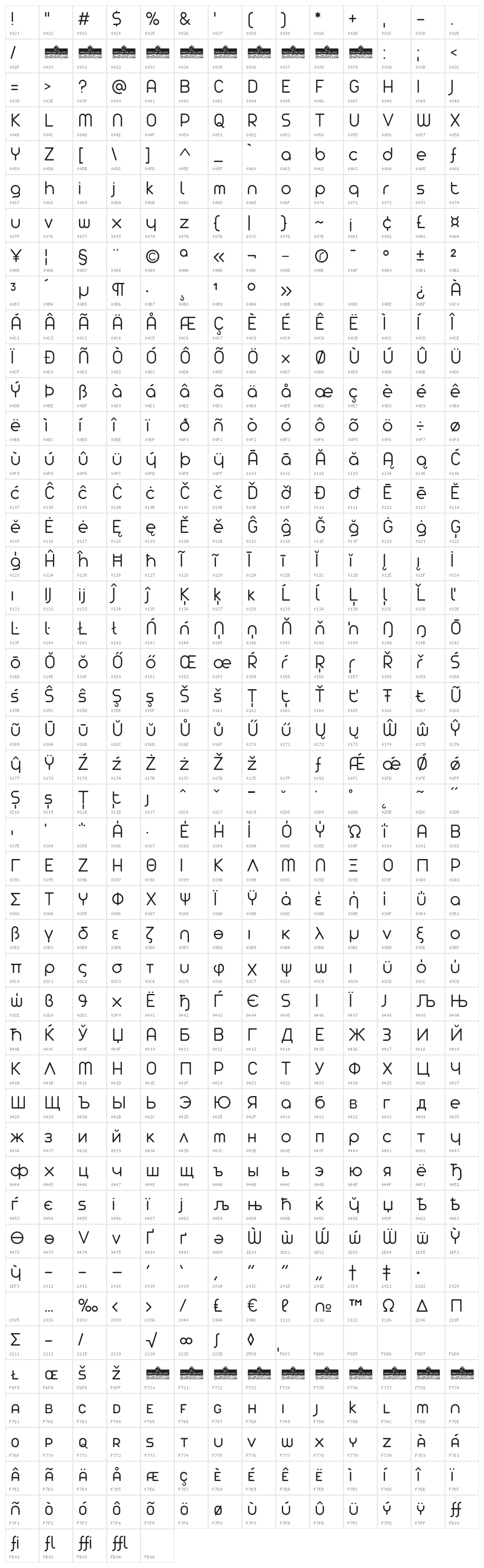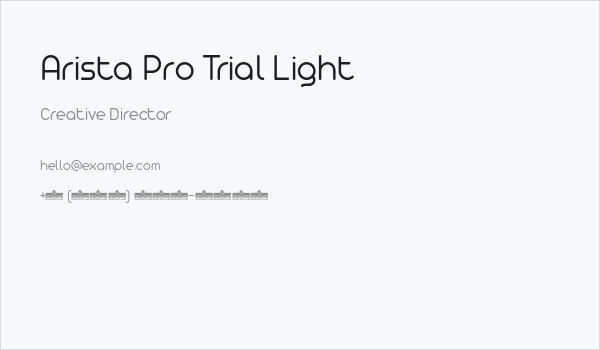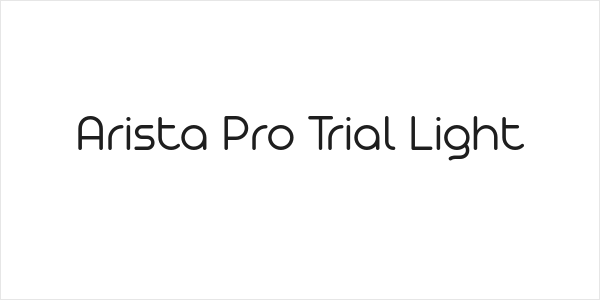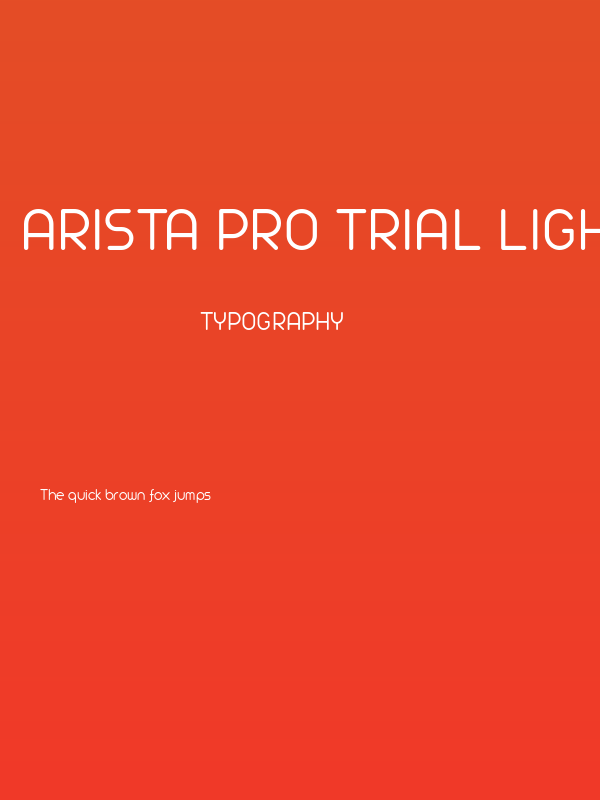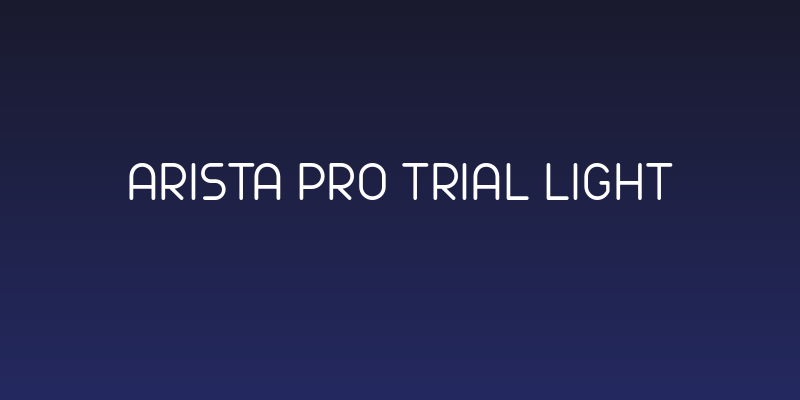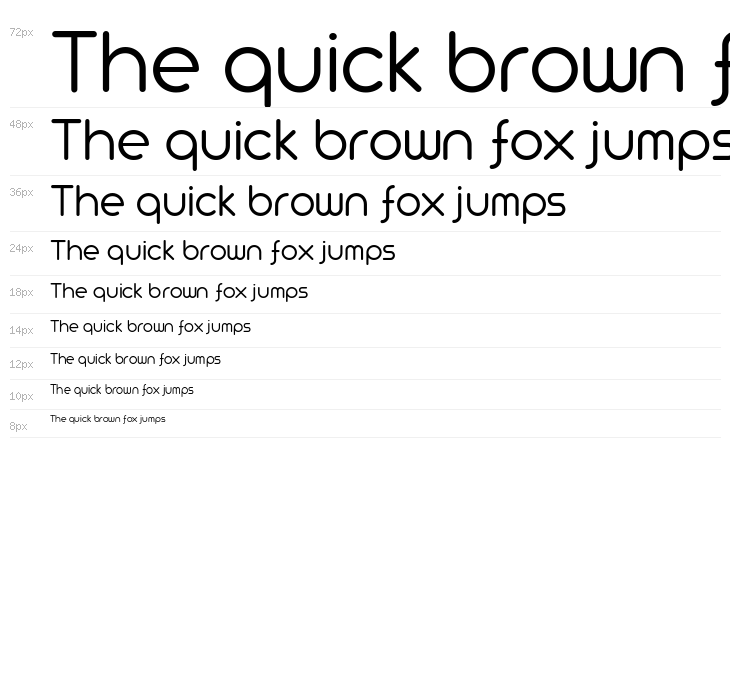
Arista Pro Trial Light Font
Arista Pro Trial Light Description
This font features a clean, modern design with rounded edges and a minimalist aesthetic. The characters are evenly spaced, providing a harmonious and balanced appearance. The uppercase and lowercase letters maintain a consistent style, with smooth curves and a uniform stroke width. The numerals and special characters are designed to complement the alphabet, ensuring readability and visual appeal. This font's simplicity and elegance make it suitable for a variety of applications, from digital interfaces to print media.
| Proposed Projects | Ideal for digital interfaces, branding, advertising, and print media where a clean and modern look is desired. |